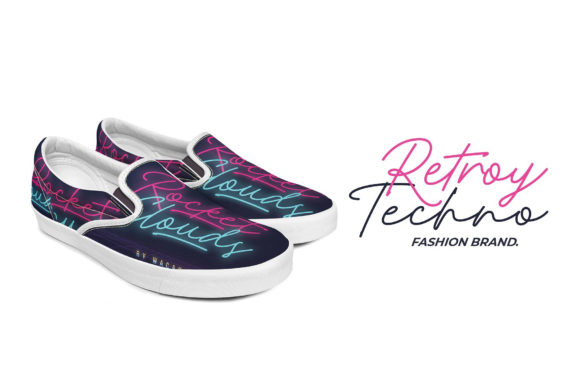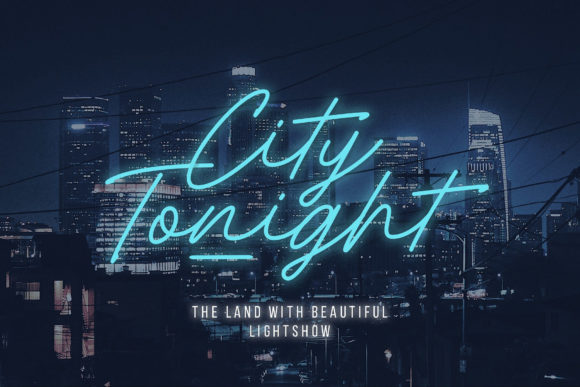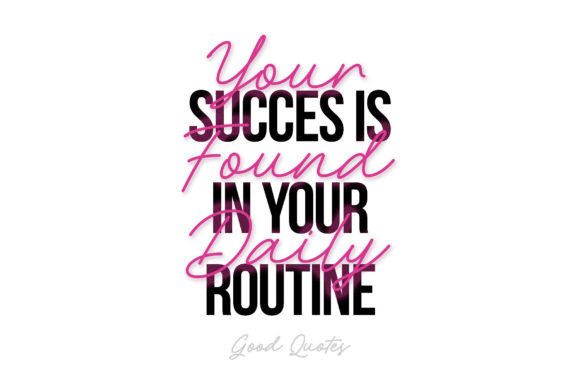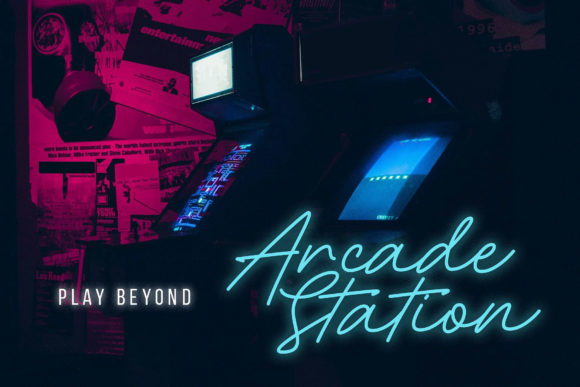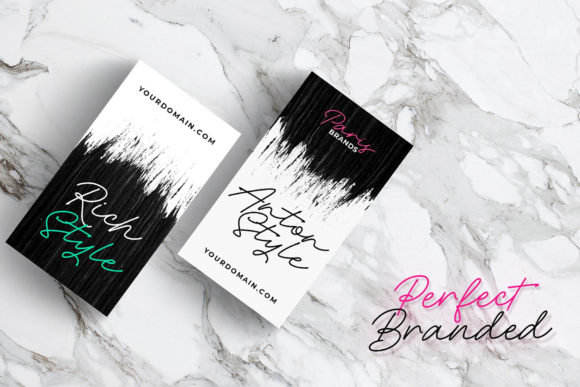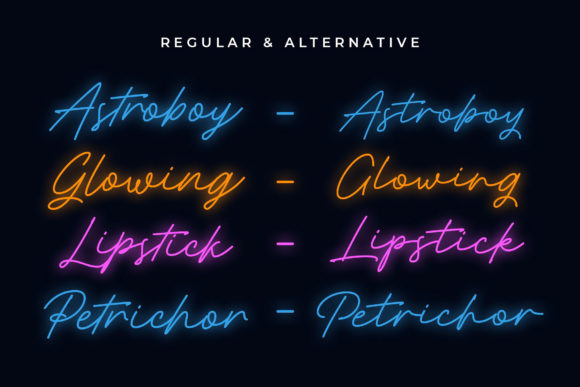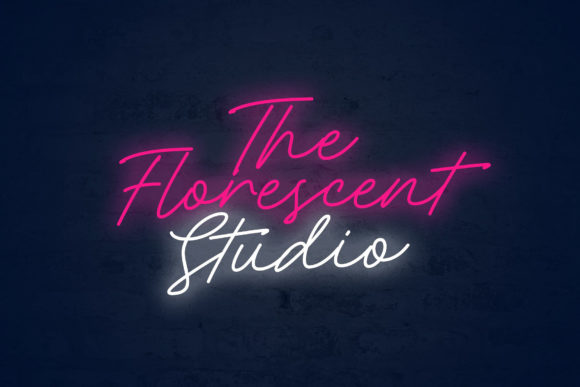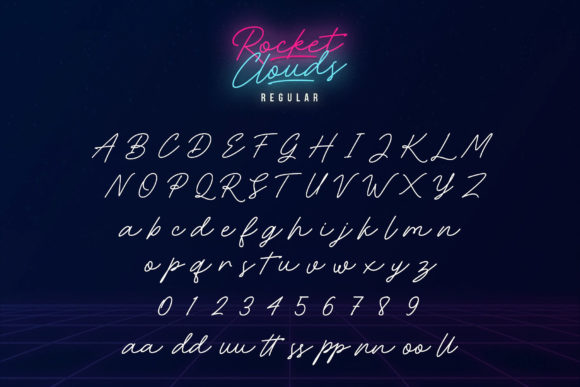
Rocket Clouds Font
About Rocket Clouds Font
Rocket Clouds is a font that effortlessly captures the essence of flowing elegance, making it a perfect choice for a myriad of creative projects. With its graceful and smooth strokes, it exudes a sense of sophistication and timelessness that instantly captivates the eye. This font’s unique combination of elegance and distinctiveness allows it to stand out in a crowded design landscape.
The flowing nature of Rocket Clouds lends a sense of fluidity and movement to any text it adorns. Each letter seamlessly connects to the next, creating a harmonious and continuous visual rhythm. This quality is particularly well-suited for projects that aim to convey a sense of dynamism, whether it’s in the form of motivational quotes, inspirational posters, or dynamic social media graphics.
The font’s elegant touch is evident in its carefully crafted letterforms. The curves and lines are meticulously designed to strike a balance between sophistication and approachability. This makes Rocket Clouds versatile enough to be used across a wide range of design contexts. From formal invitations to branding materials, this font adapts to the tone and style of your project while retaining its inherent elegance.
Rocket Clouds’ distinct style sets it apart from other handwritten fonts. Its unique characteristics make it instantly recognizable, making your designs memorable and captivating. This distinctiveness is particularly advantageous for logo design, branding elements, and any project where you want to make a lasting impression.
The timeless quality of Rocket Clouds ensures that your designs will remain relevant and visually appealing for years to come. It avoids being overly trendy, allowing it to seamlessly integrate into a variety of design trends and aesthetics. This font’s timeless appeal makes it a valuable asset for projects that require longevity, such as company logos, signage, and classic book covers.
With Rocket Clouds, your creativity knows no bounds. Its versatility allows you to experiment with different layouts, sizes, and color combinations, all while maintaining its elegant charm. The font’s adaptability empowers you to create striking designs that resonate with your intended audience, whether you’re working on wedding invitations, blog headers, or product packaging.
In summary, Rocket Clouds is a flowing handwritten font that effortlessly combines elegance with distinctiveness, creating a harmonious balance that brings a touch of sophistication to your favorite projects. Its timeless style ensures its versatility across various design contexts, making it a reliable choice for both current and future design trends. Embrace the unique charm of Rocket Clouds and watch as your designs come to life with a touch of flowing elegance.